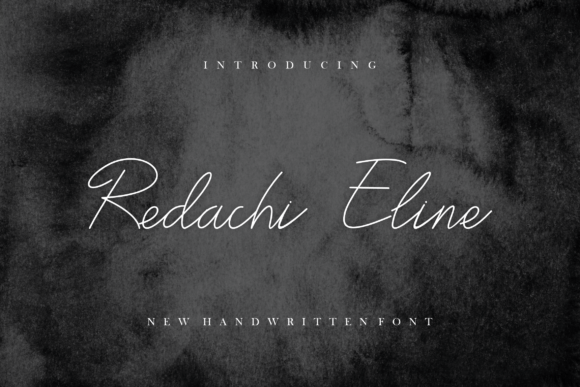
Discover the elegance and sophistication of Redachi Eline Font, an exquisitely crafted script font family that captures the essence of beauty and creativity. Designed to elevate your digital creations, Redachi Eline is the perfect companion for online magazines, social media posts, blog headers, and any project yearning for a touch of stylish allure.
With its graceful thin strokes, elegant curves, and timeless appeal, Redachi Eline is a font that speaks to the heart. It carries a sense of fluidity and movement, adding a dynamic charm to your designs. Whether you're a seasoned designer or a creative enthusiast, Redachi Eline will unleash your imagination and fuel your creative passion.
Immerse yourself in a world of limitless expression as you explore the versatility of Redachi Eline. Its diverse range of styles, including regular, bold, italic, and bold italic, offers a wealth of design possibilities, allowing you to create designs that truly resonate with your audience. Captivating headlines, engaging social media posts, or alluring blog titles - Redachi Eline is the font that transforms ordinary text into visual masterpieces.
With Redachi Eline, you'll never be short of inspiration. Its delicate and intricate details add a touch of elegance to any design, while its clean and readable appearance ensures that your message is conveyed with clarity and precision. Let Redachi Eline be your creative muse, guiding you toward designs that leave a lasting impression on your audience.
Unleash the power of Redachi Eline today and embark on a creative journey that will redefine your design aesthetics. Experience the fusion of style and functionality as you witness your ideas come to life in a stunning display of visual artistry. Redachi Eline is more than just a font; it's an invitation to let your imagination soar and create designs that captivate and inspire.